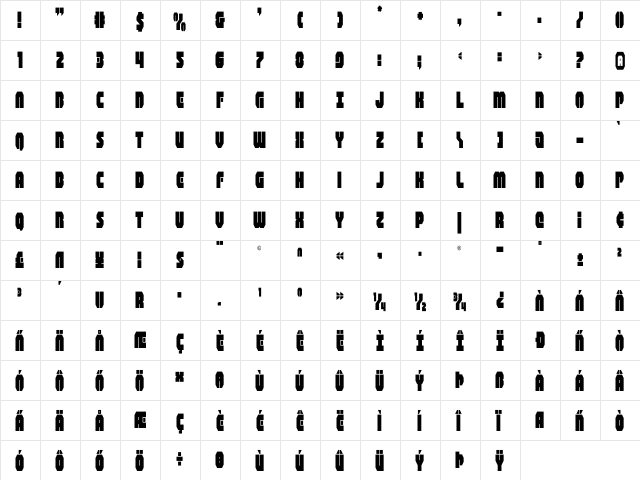
Shogunate Condensed Condensed
Design Context for Shogunate Condensed Typeface
Shogunate Condensed takes a measured approach to typography — its balanced proportions and neutral character make it a reliable workhorse for both digital and print work. Its narrow stance lets it pack a punch even in space-constrained designs.